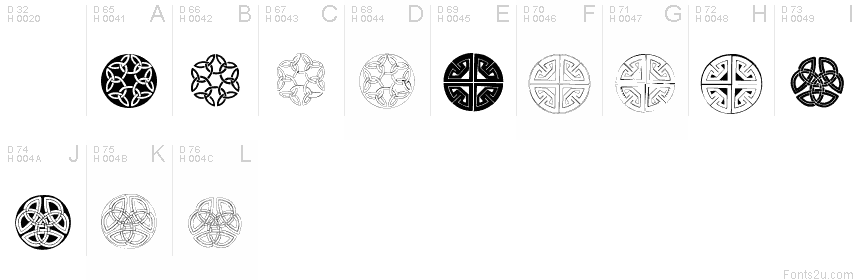
Celtic Circledings by Celtic Faery is a free Celtic knot dingbat font built from interlaced loops and pointed leaf-like forms. Each symbol has a clean outlined construction.
Packaging offers a natural home for these ornamental marks, especially on craft food labels or goods with a folk theme. They can also form borders for event invitations or supply emblems for fantasy games. The repeating woven motif can become a recognizable product mark for heritage brands rather than serving only as an accent.